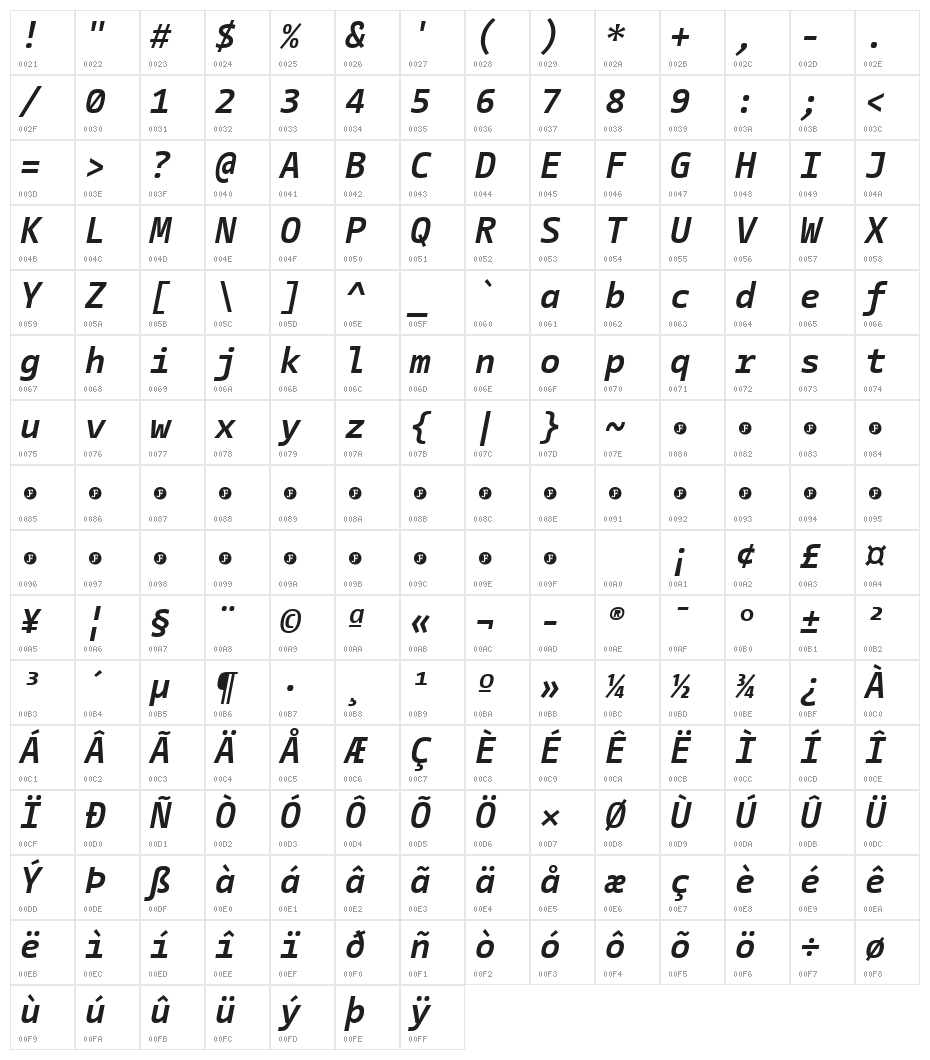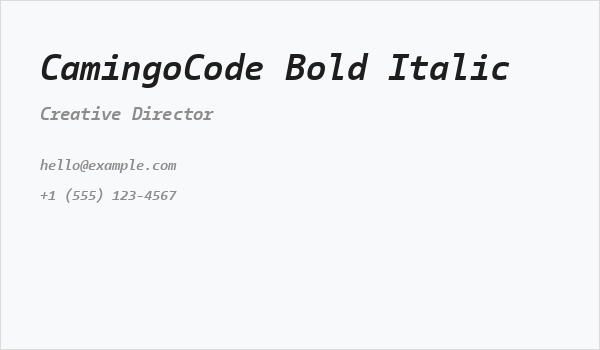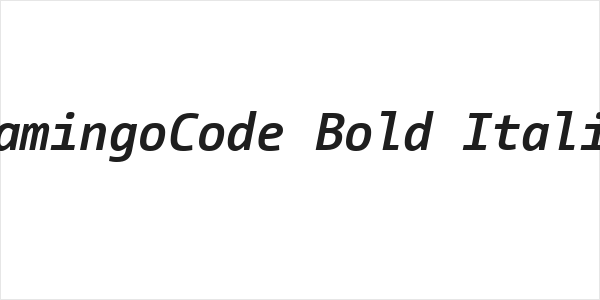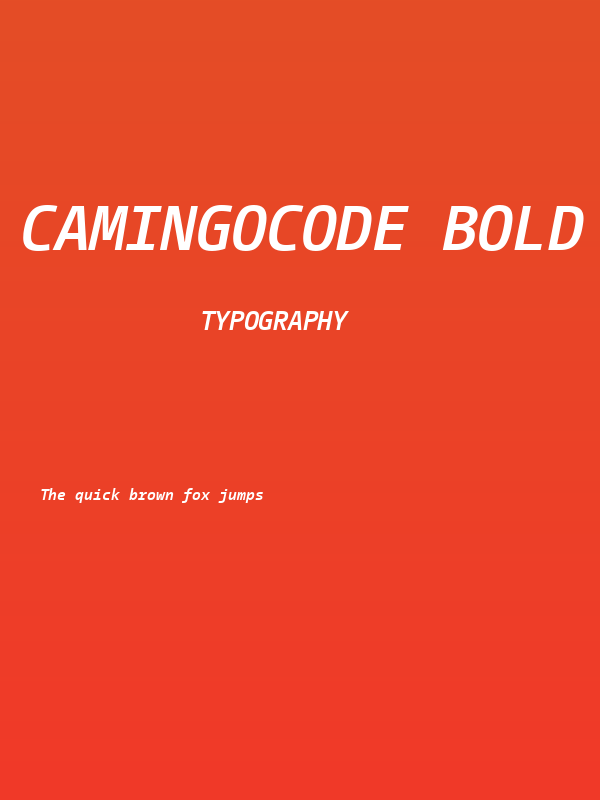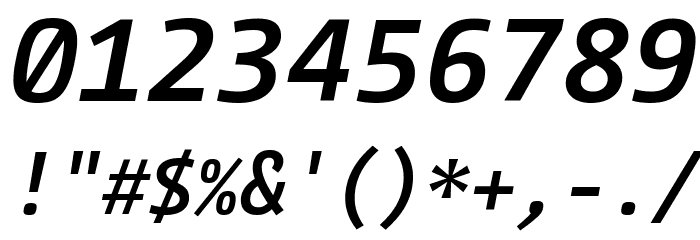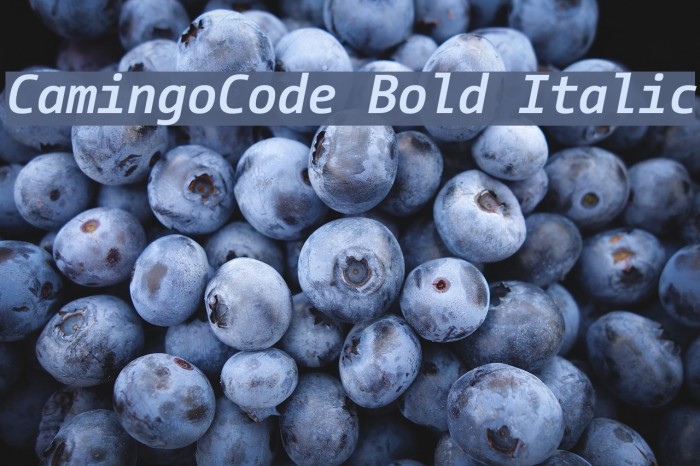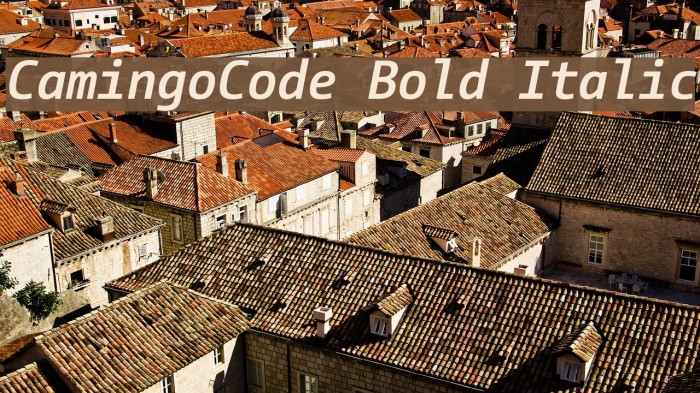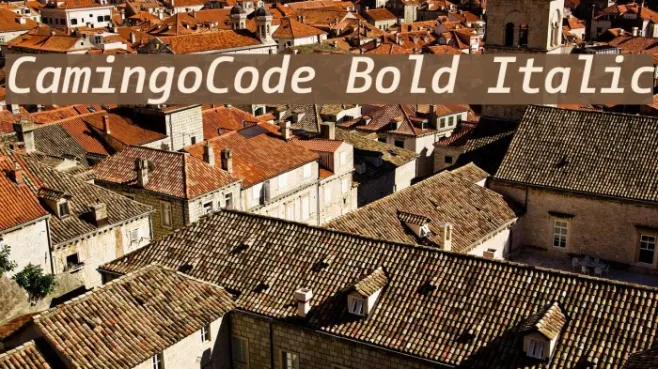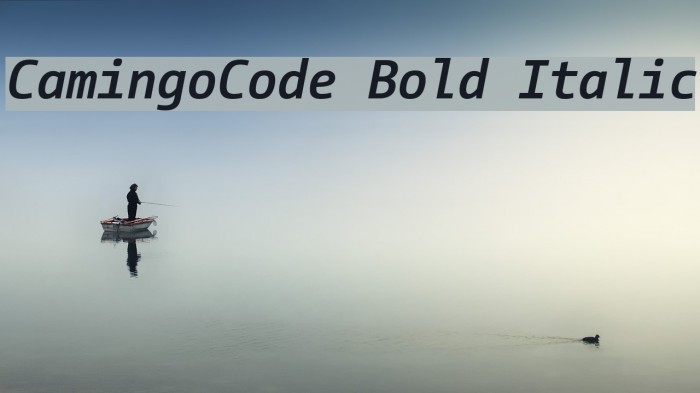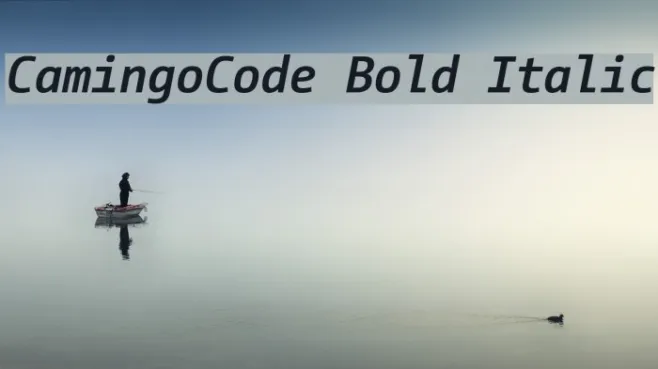
CamingoCode Bold Italic Font
CamingoCode Bold Italic Description
This font exhibits a modern and clean design, characterized by its monospaced structure which ensures each character occupies the same amount of horizontal space. The italic style adds a dynamic and forward-leaning appearance, enhancing readability and visual interest. The bold weight provides a strong presence, making it suitable for emphasis in text. The characters are well-defined with a medium contrast in stroke thickness, offering clarity and legibility. The overall style is functional and contemporary, ideal for coding environments or any project requiring a technical and precise aesthetic.
| Use Case | Coding, Technical documentation, Emphasis in text |
| Proposed Projects | Ideal for use in coding editors, technical documentation, or any project requiring a clear and structured typeface. |